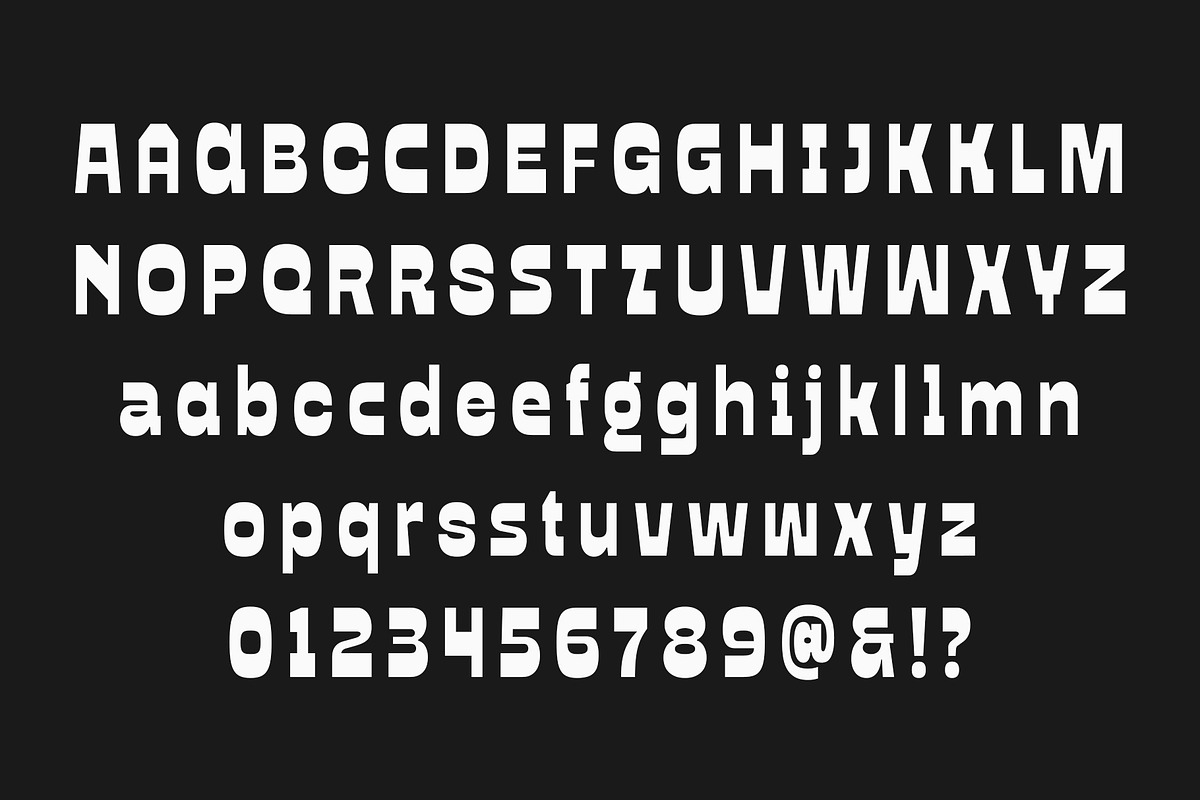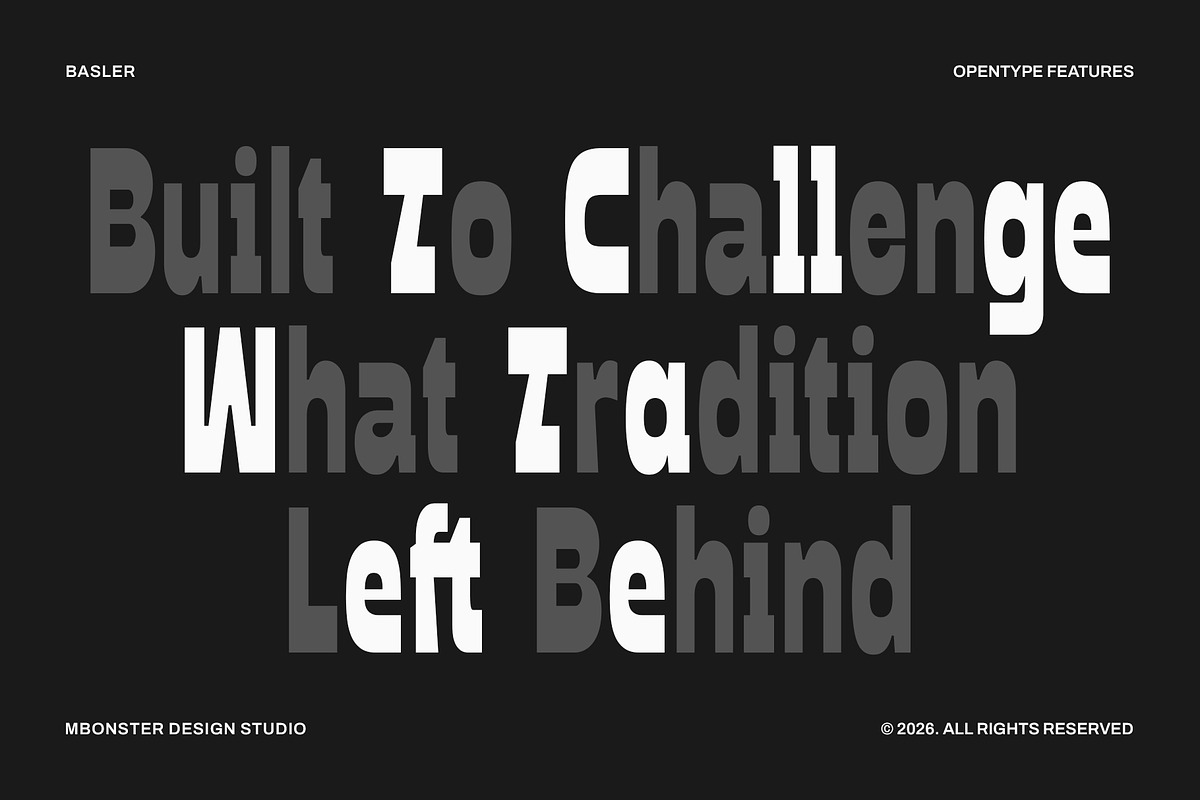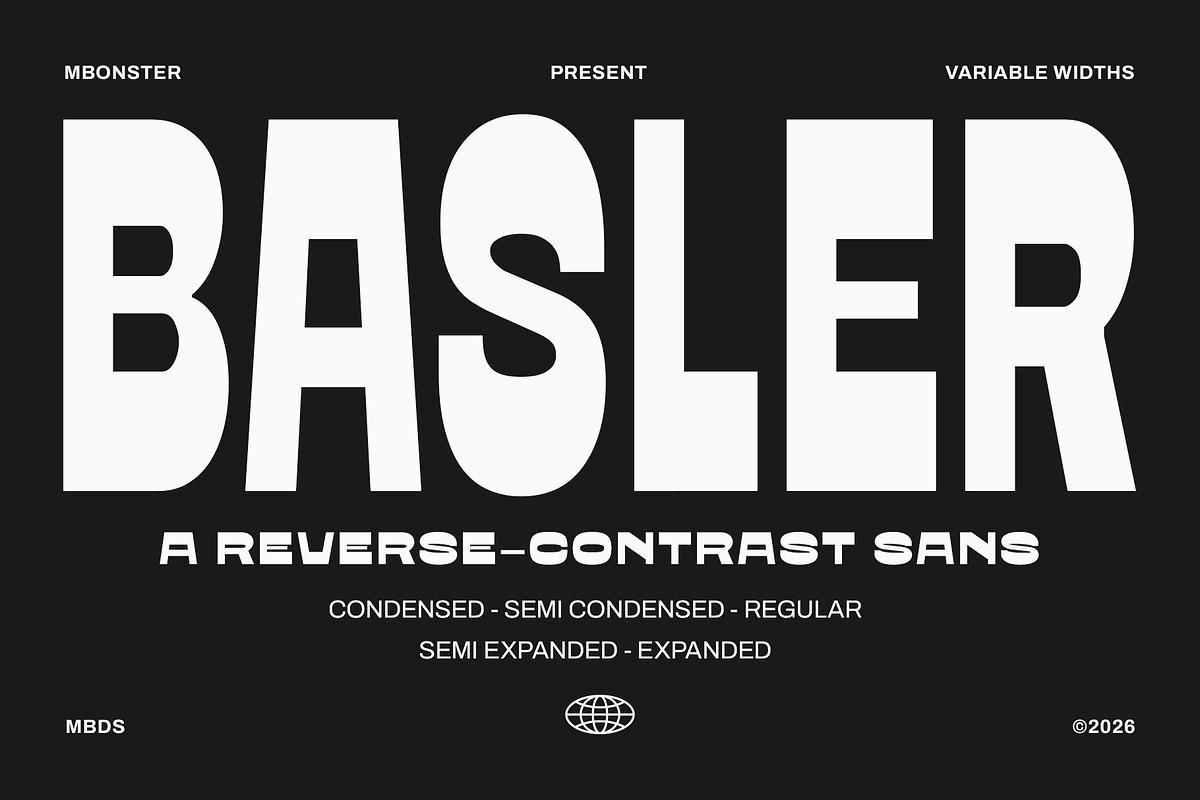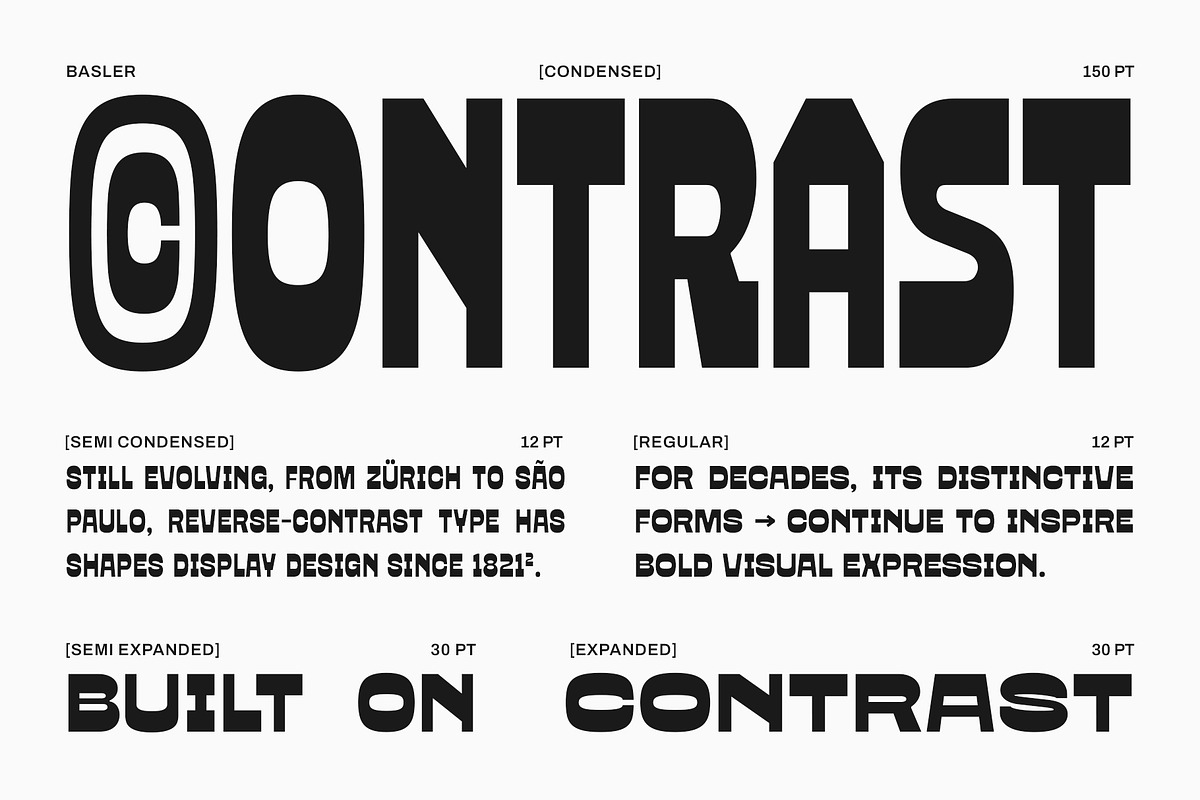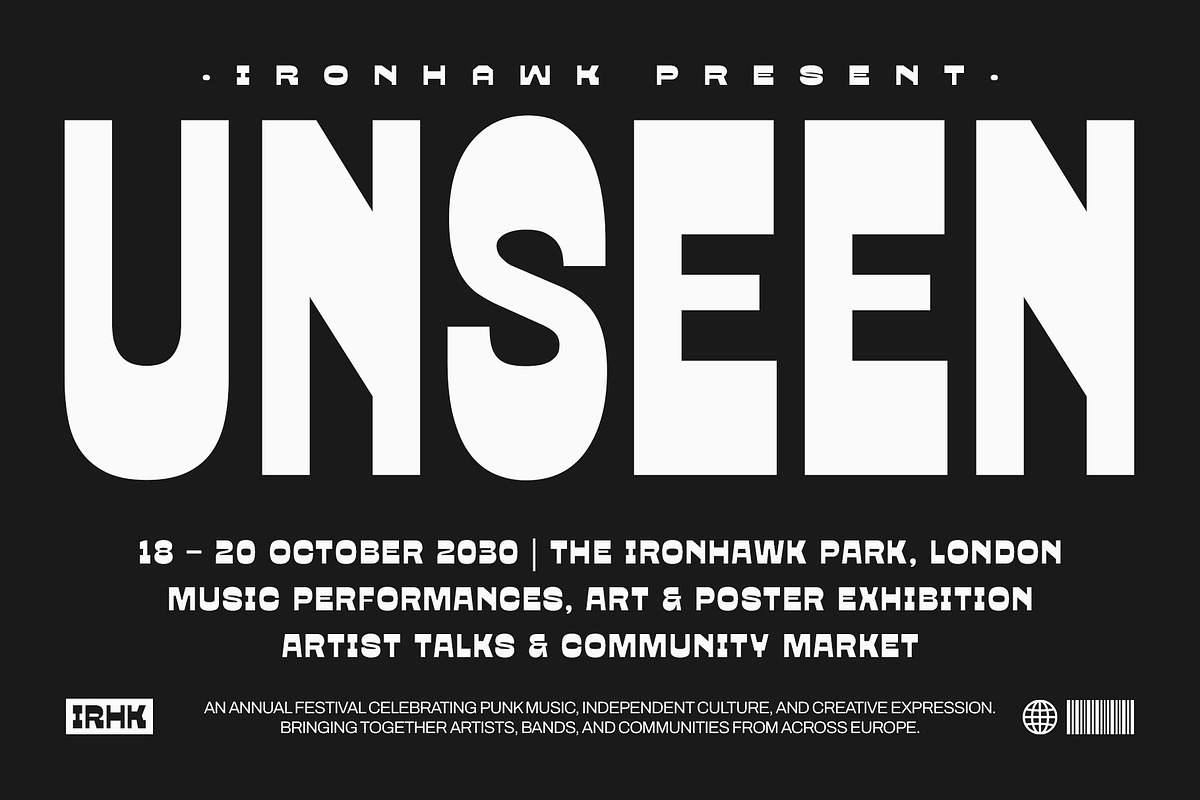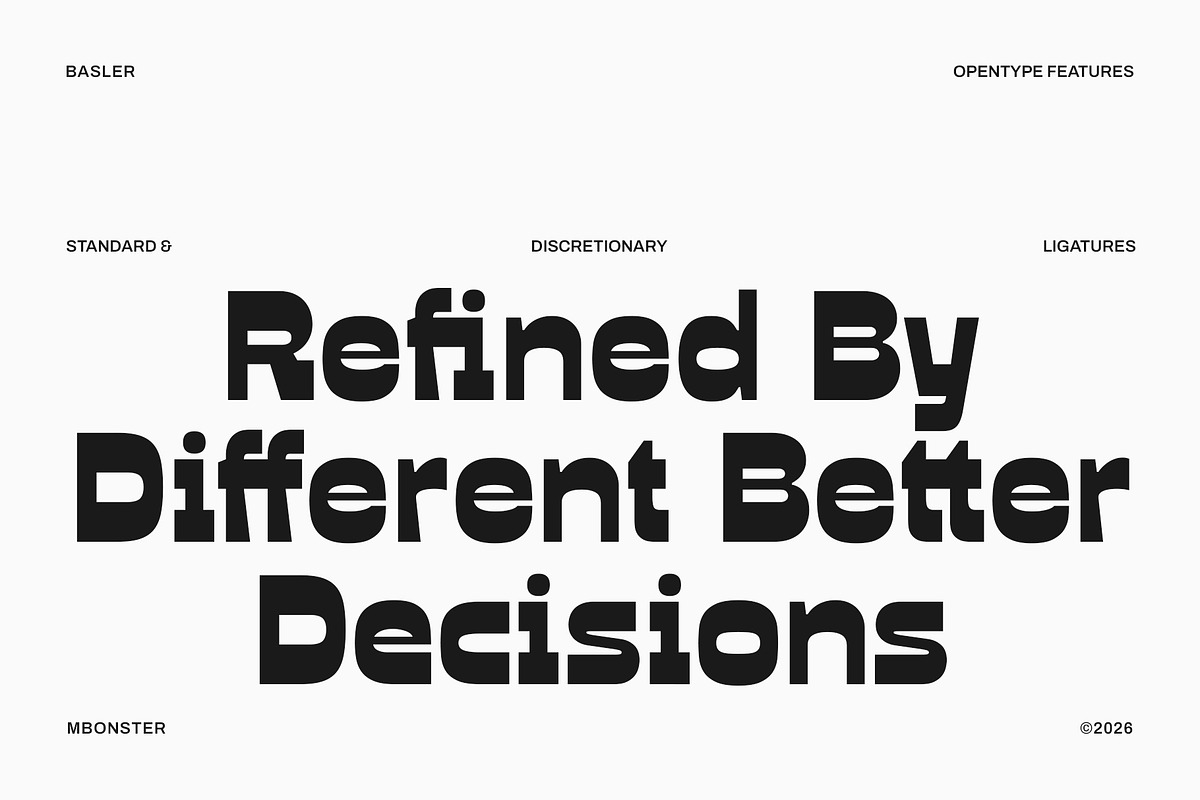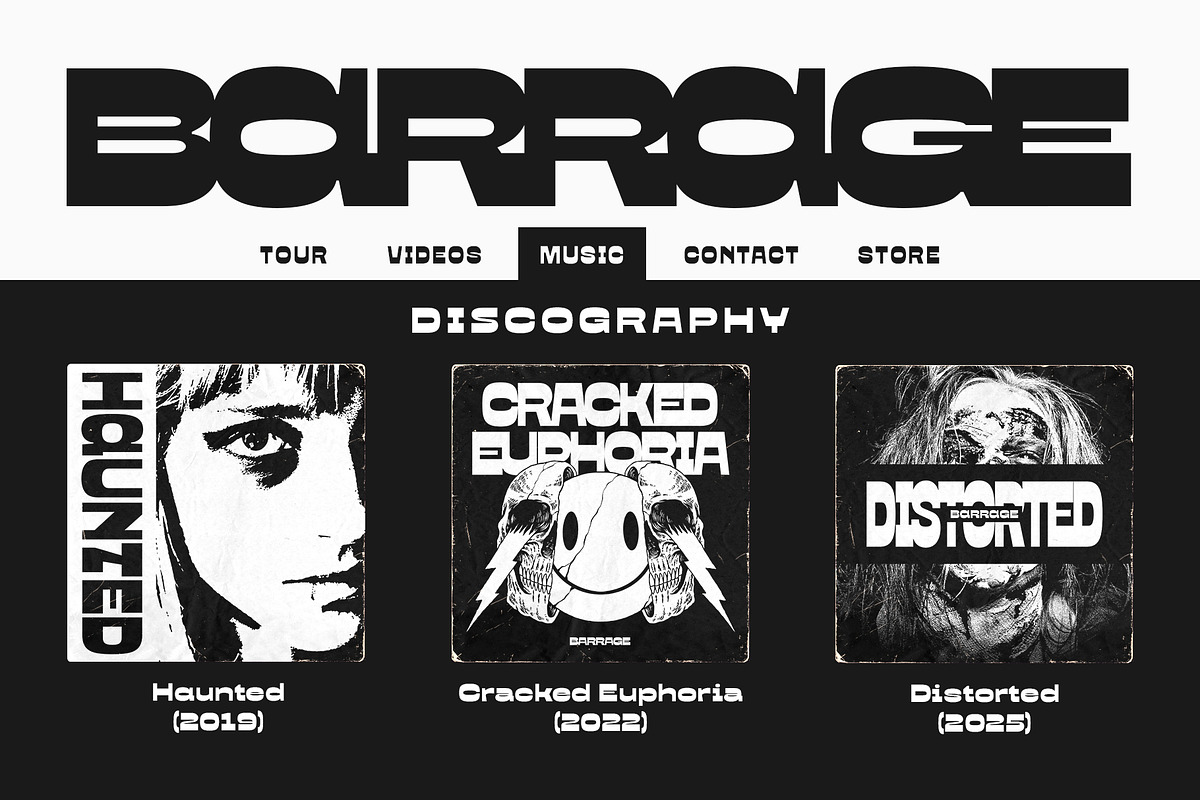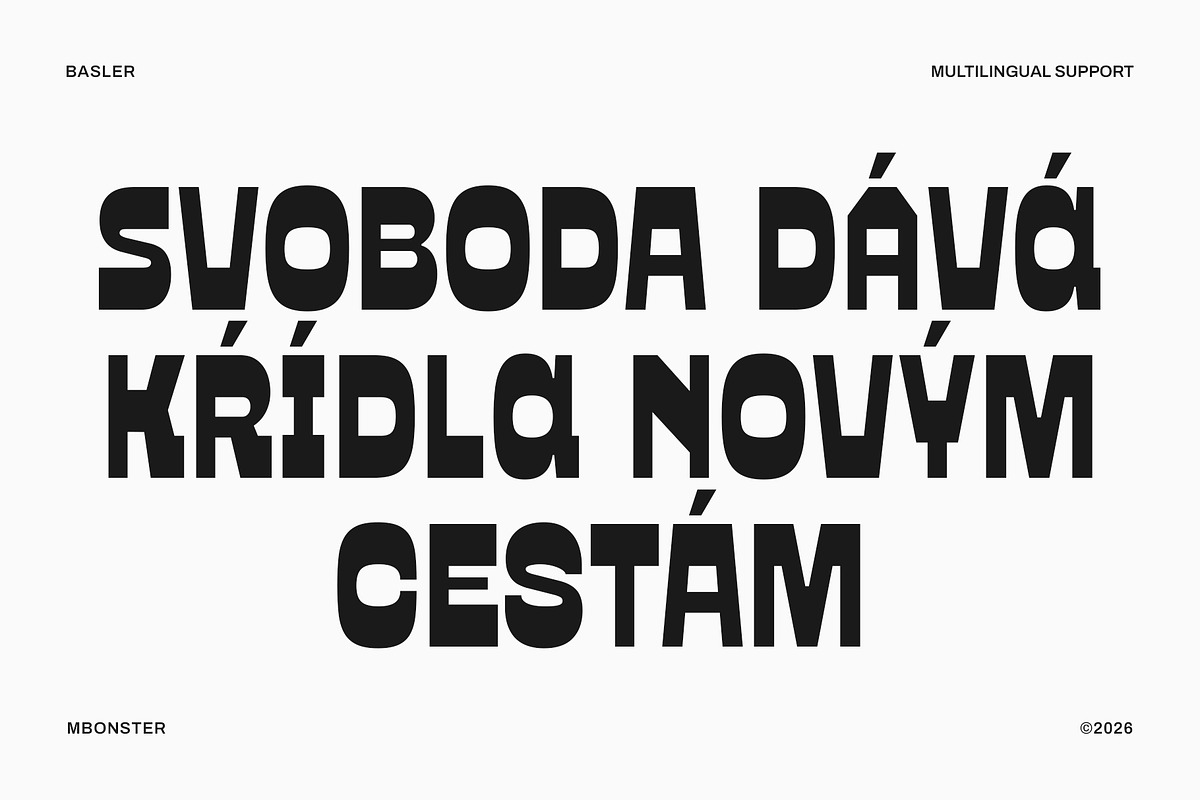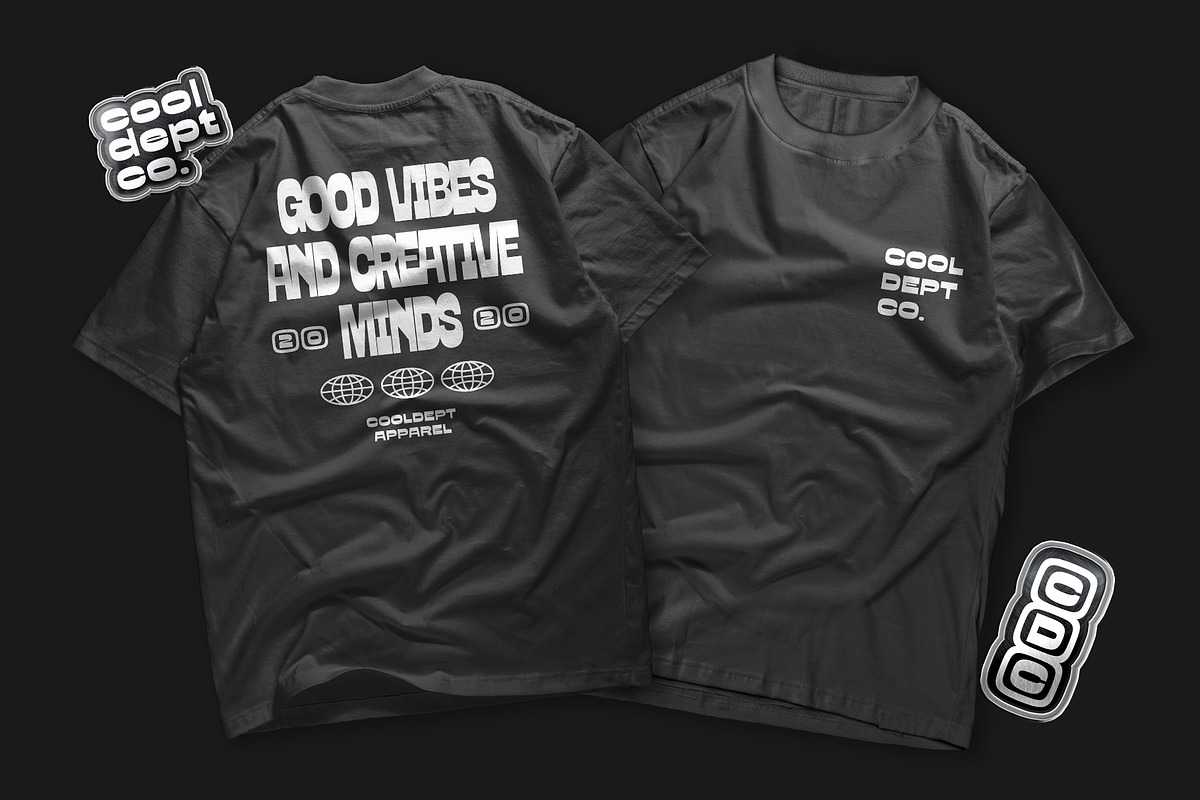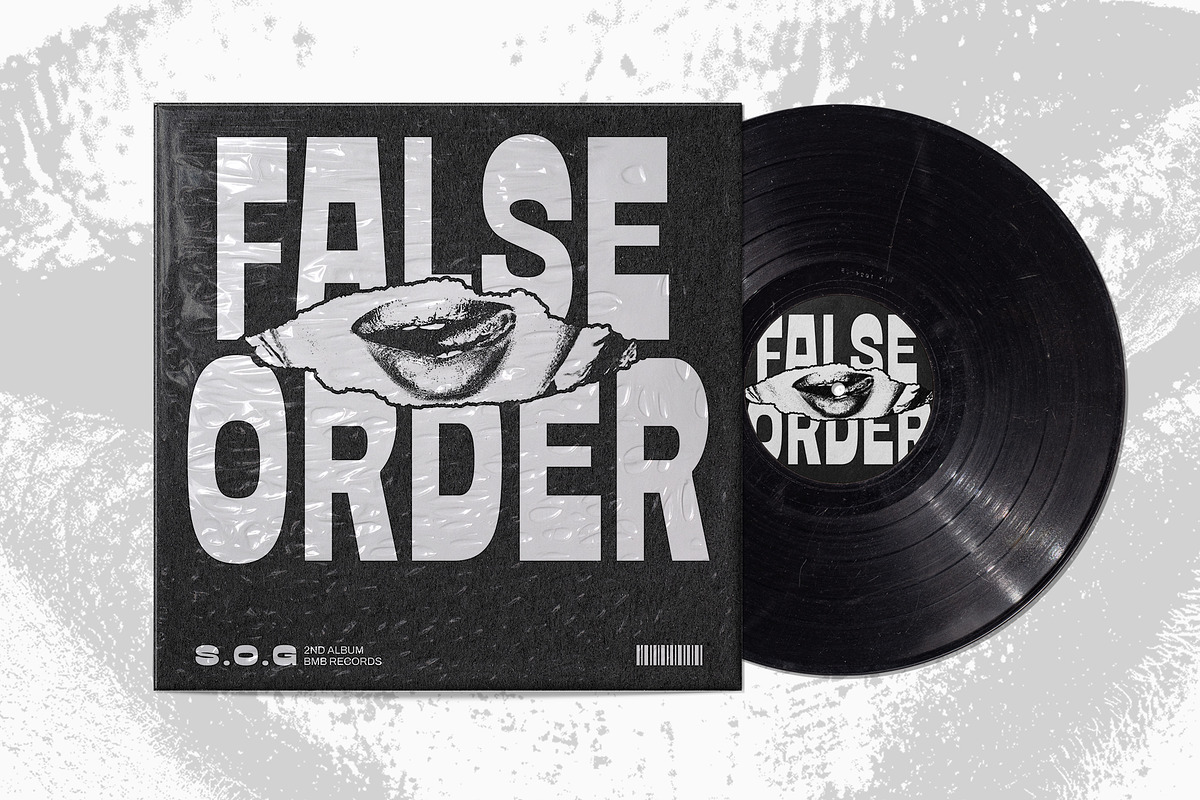
Basler - Reverse Contrast Sans
Basler is a high-impact, meticulously handcrafted reverse-contrast sans-serif that demands attention. Infusing vintage grit with modern editorial edge, it commands the room with its striking, unconventional proportions. Packed with** 5 versatile widths** and a fully dynamic variable font file, Basler gives you absolute creative freedom to bend typography to your absolute will.
Built for bold statements, Basler dominates any canvas—from massive typography posters and edgy magazine headlines to striking streetwear apparel, tote bags, vinyl record sleeves, and high-stakes branding.
Break the mold. Shatter expectations. Let your designs scream with Basler!